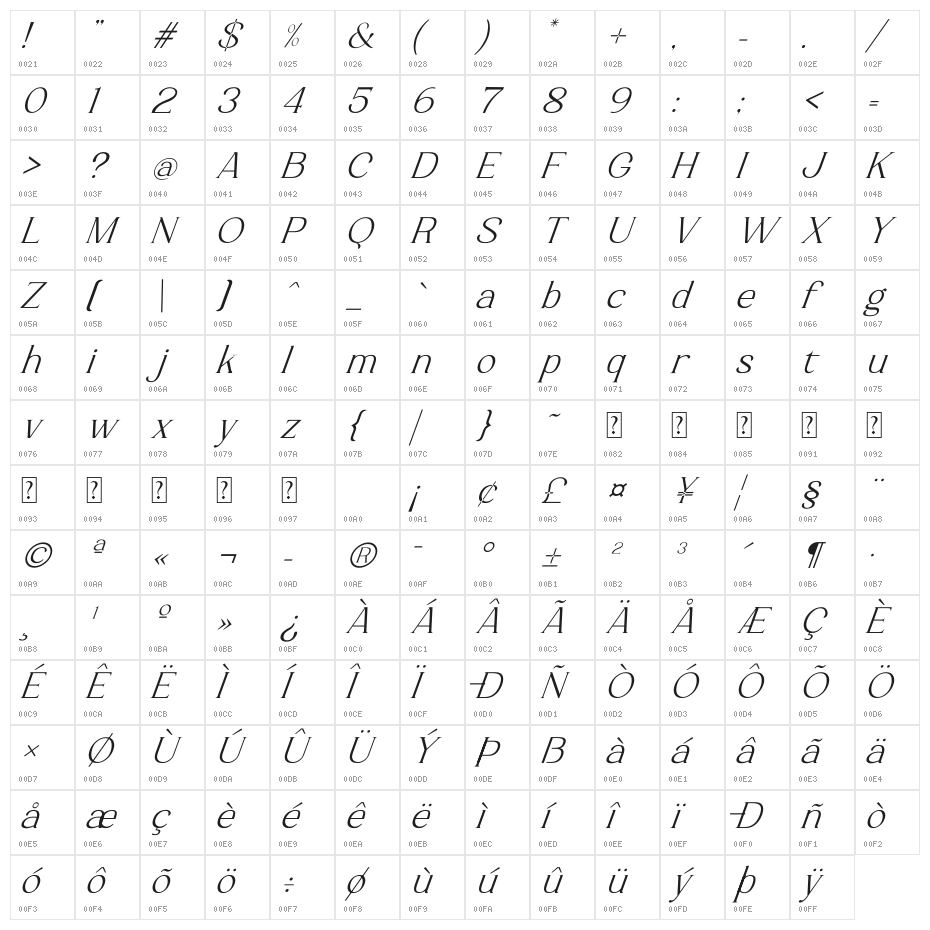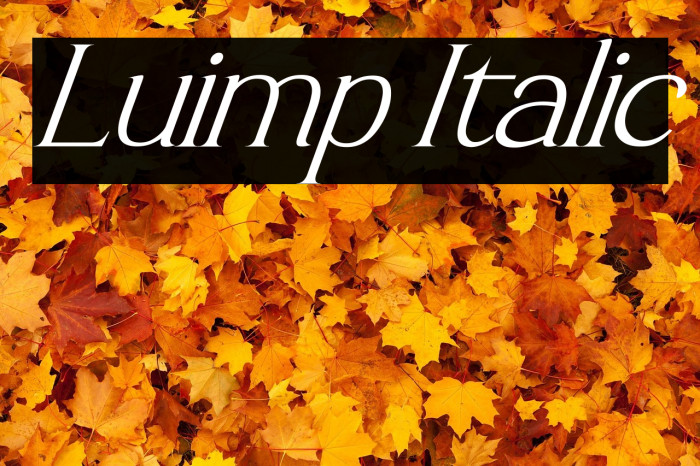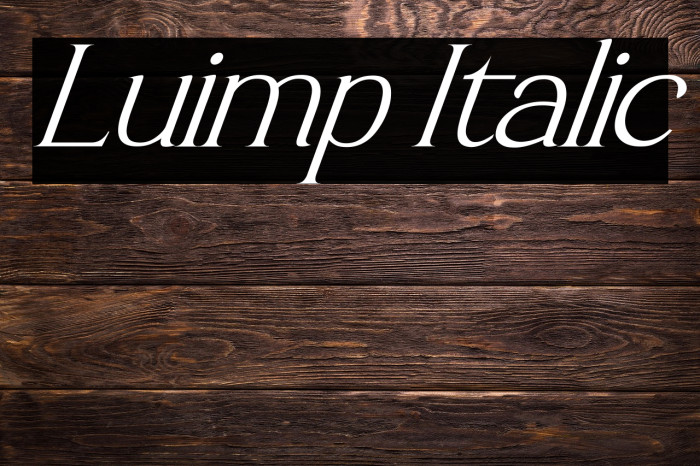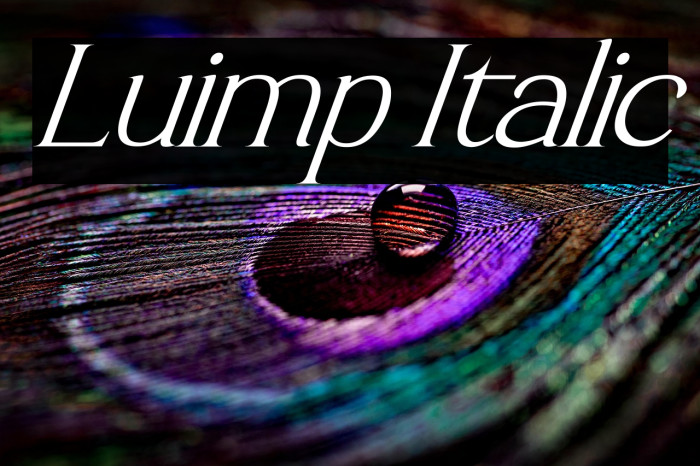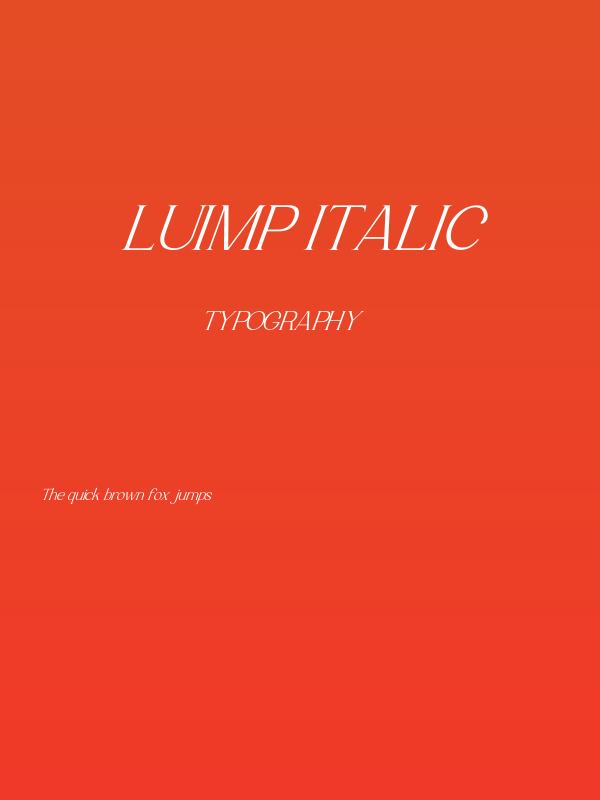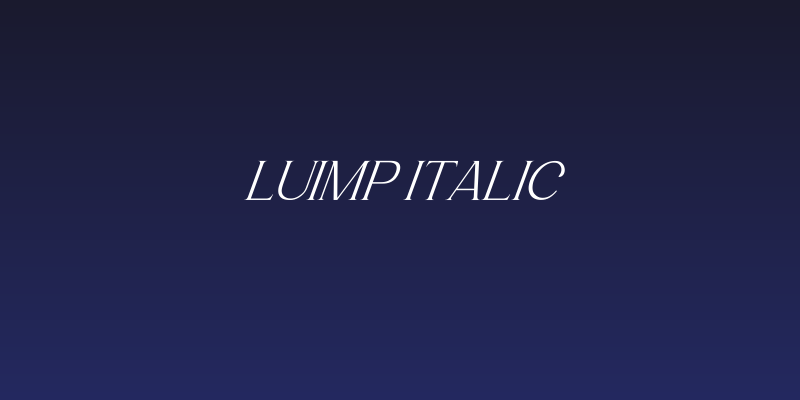
Luimp Italic Font
Luimp Italic Description
This font exudes elegance and sophistication with its italicized, flowing characters. The letters are slightly slanted, giving a sense of motion and grace. The strokes are thin yet consistent, providing a delicate appearance without sacrificing readability. The uppercase letters are tall and commanding, while the lowercase letters maintain a smooth, cohesive flow. Numbers and special characters are designed with the same attention to detail, ensuring uniformity across all elements. This font is ideal for projects that require a touch of class and refinement.
| Proposed Projects | Ideal for wedding invitations, luxury branding, elegant posters, and high-end product packaging. |